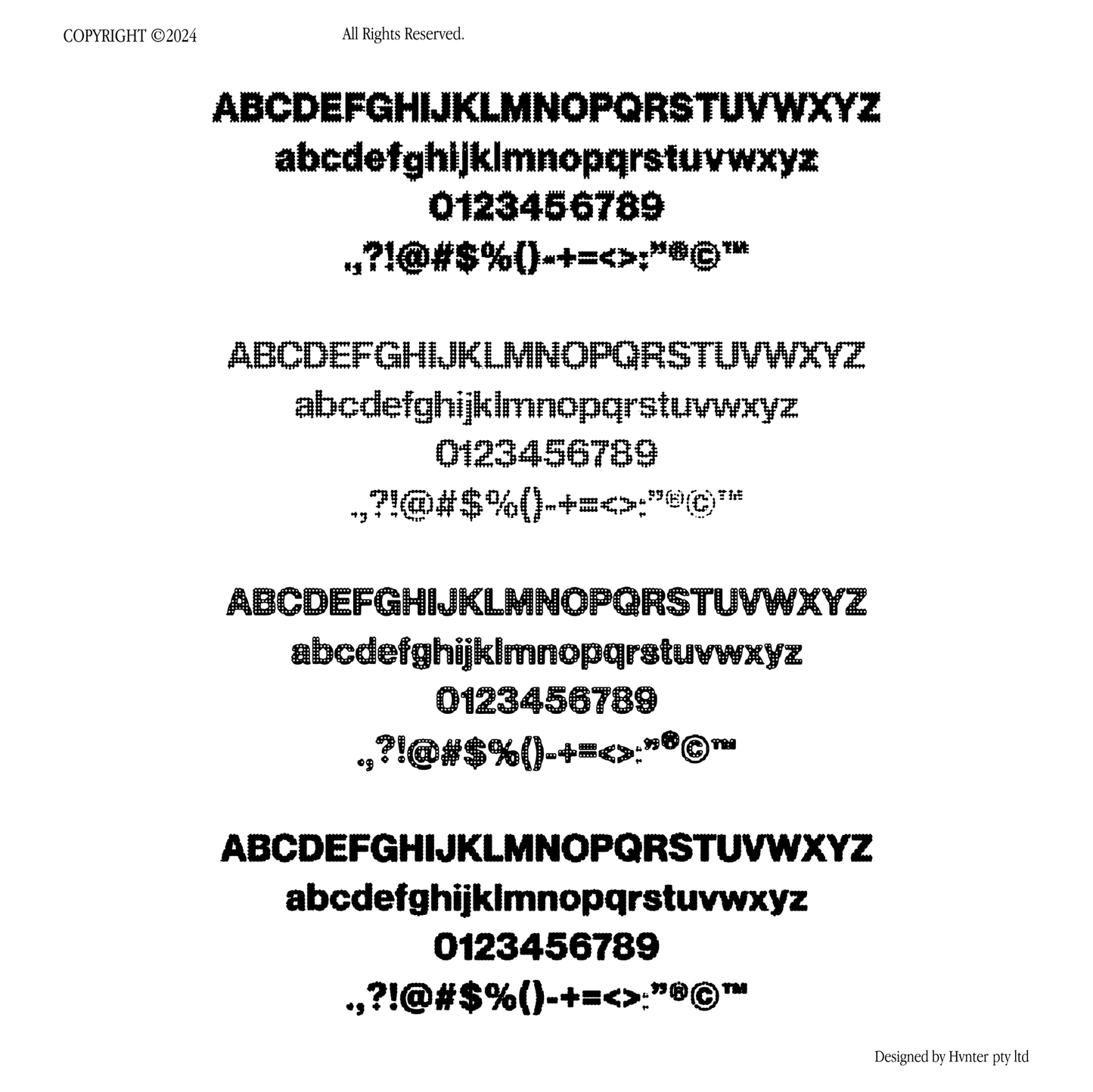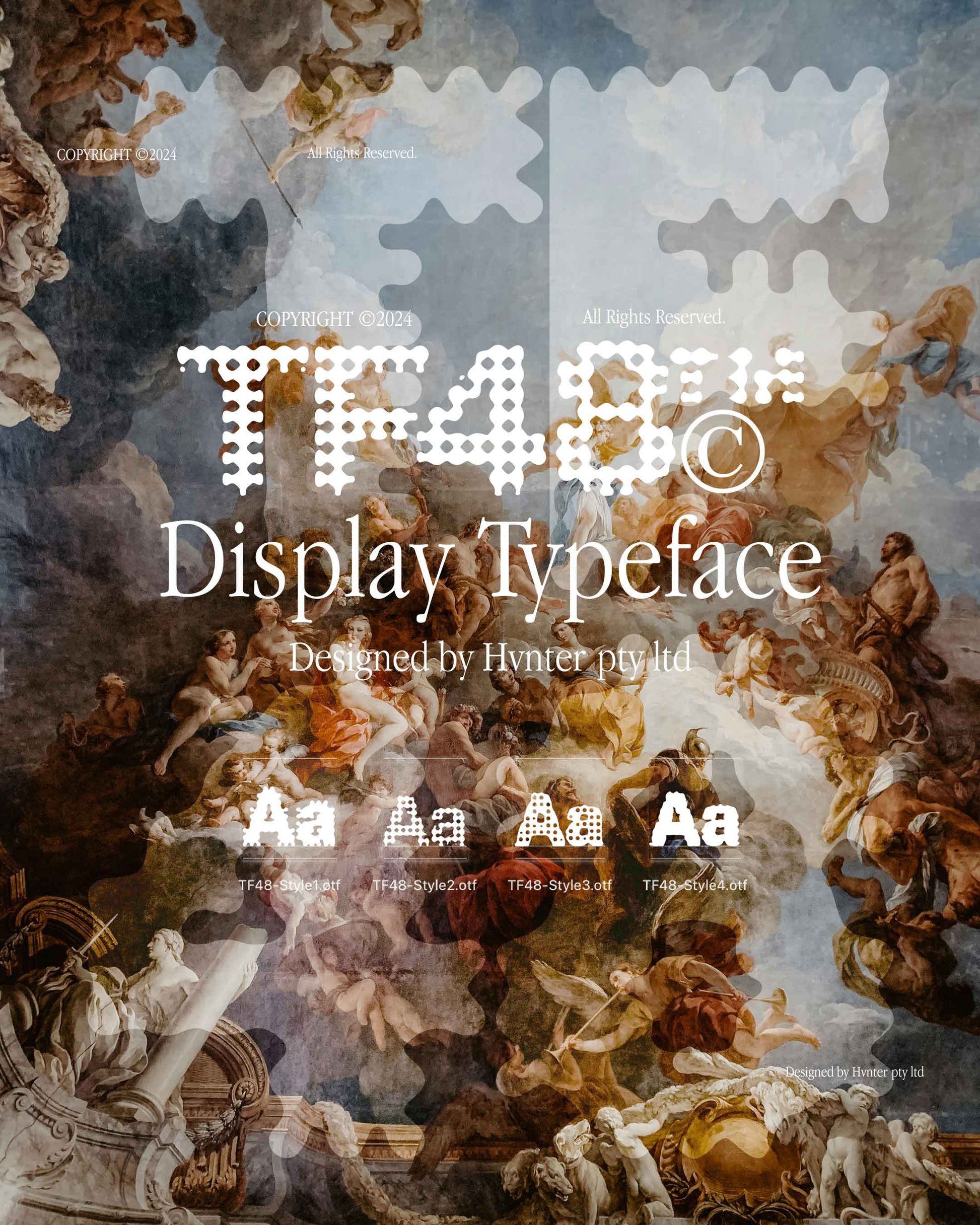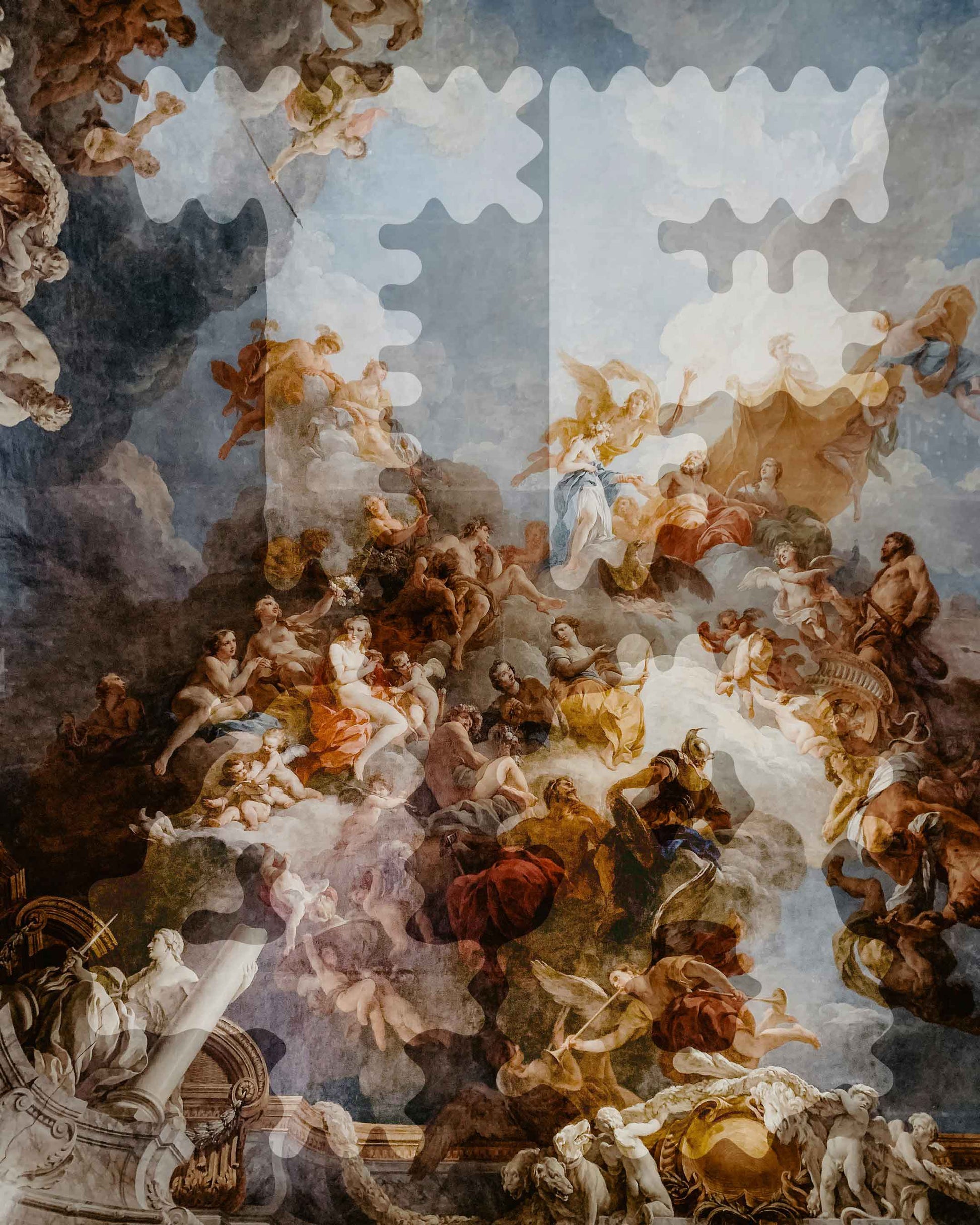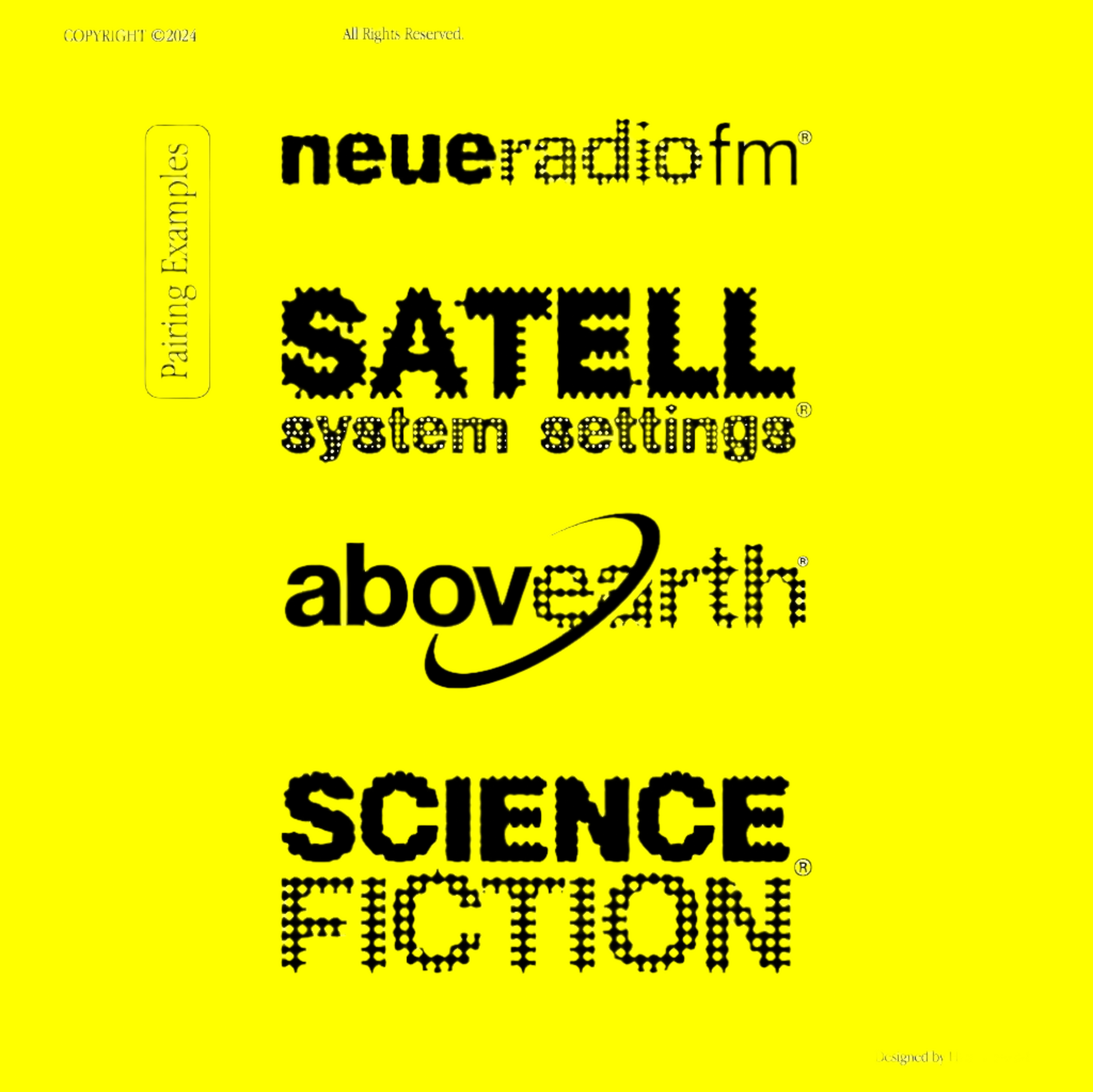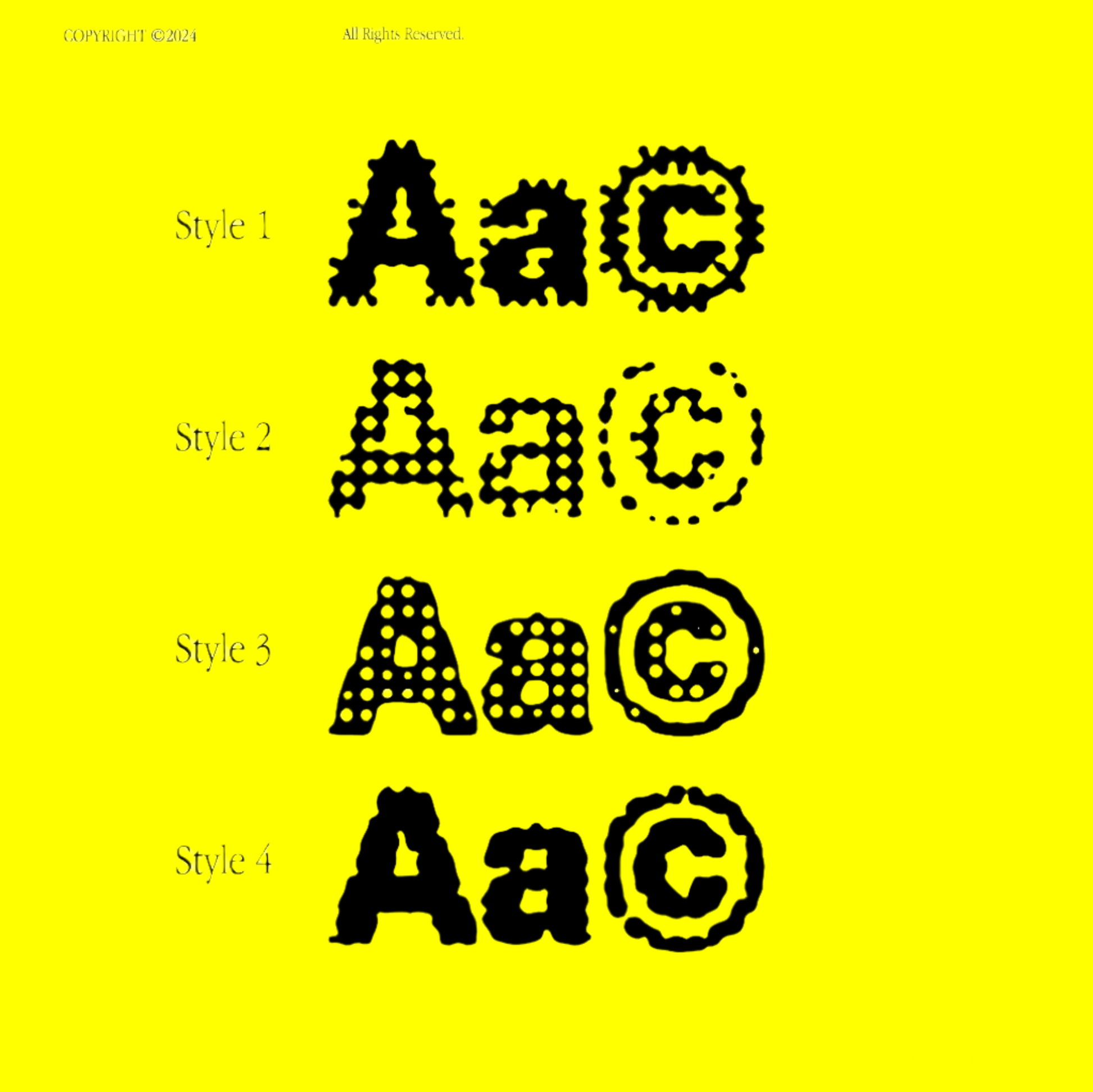
TF48 Typeface
TF48 is hacked typography—digitized static, photocopied chaos, pixelated serifs fractured through gritty distortion. Inspired by underground hacker zines, HVNTER’s TF48 slices typography conventions wide open, exposing raw, glitch-infused energy.
Offered in four aggressively textured styles, TF48 is a potent blend of serif sophistication corrupted by pixelated imperfection. Perfectly tuned for subversive album art, provocative posters, corrupted digital visuals, and tactical sabotage, TF48 is your new toolkit for typographic rebellion.
TF48=pixel disruption, serif sabotage, zine-worthy chaos.